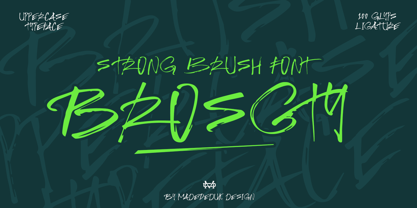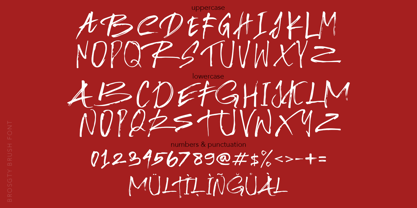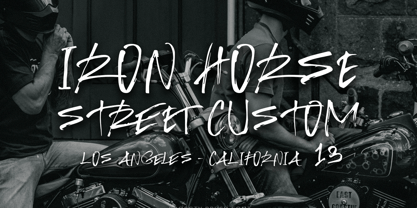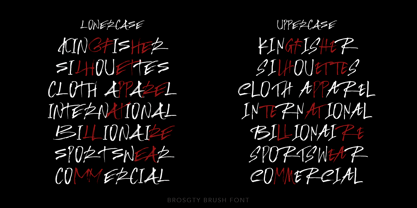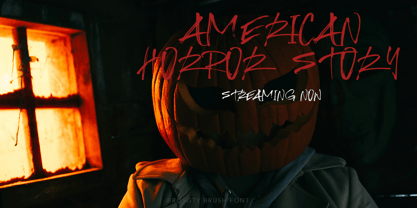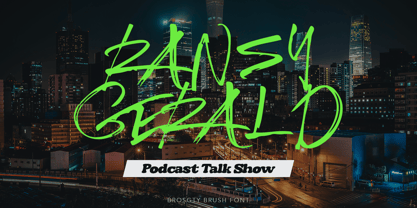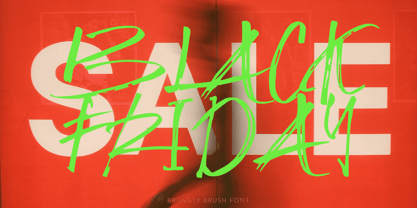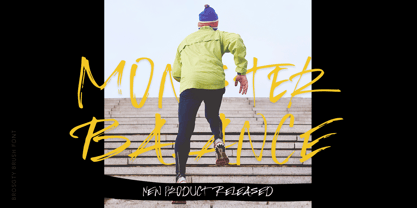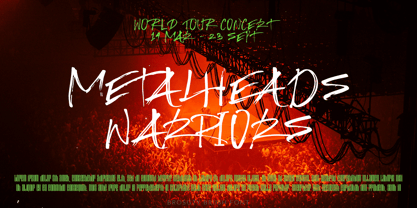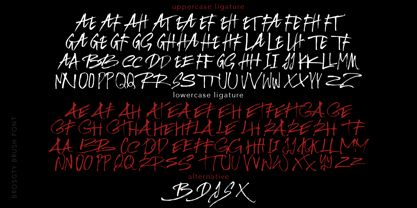
Brosgty
by madeDeduk
The Brosgty Font Family was designed by madededuk and published by madeDeduk. Brosgty contains 1 styles.
Brosgty is a brush font contains 100+ ligatures comes with proud all caps font was hand drawn with a real brush marker. This font perfect for branding, posters, logos, fashion, headline and more.